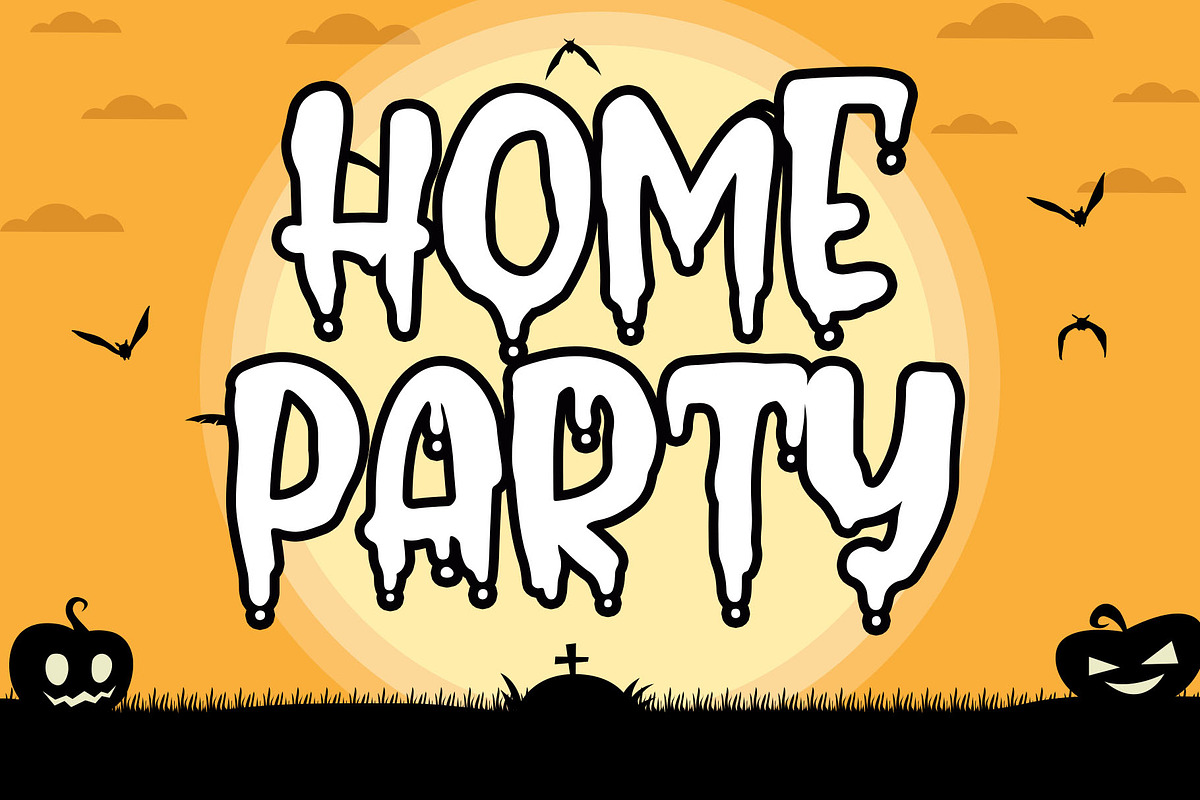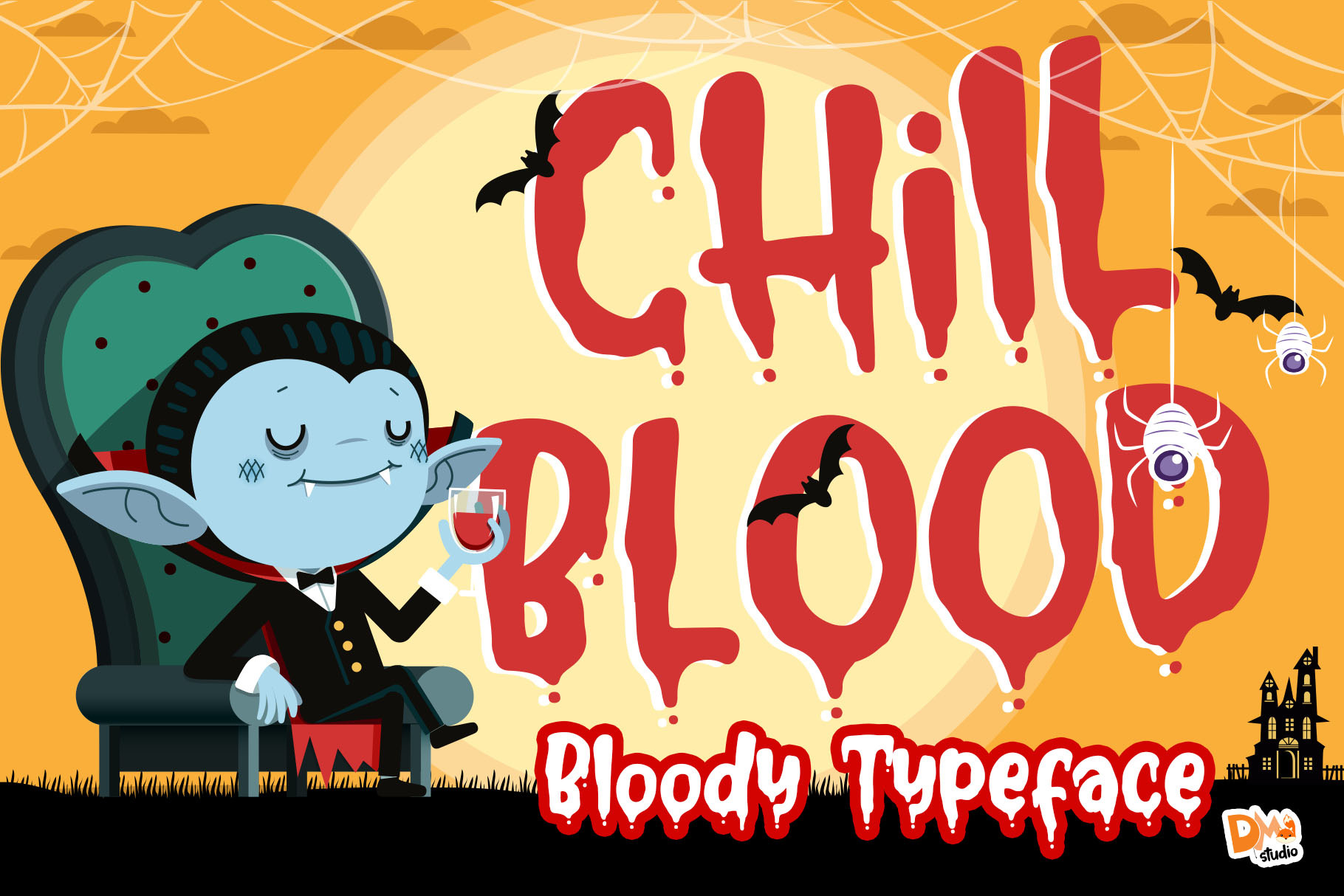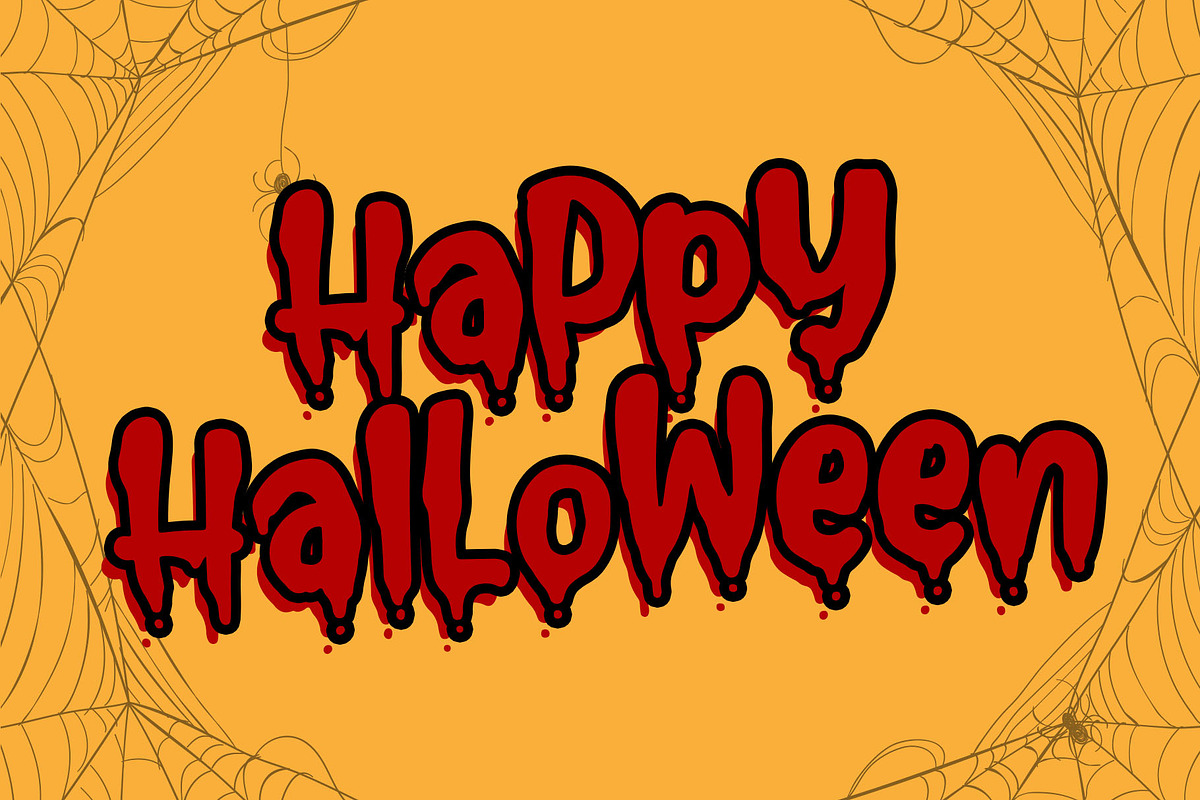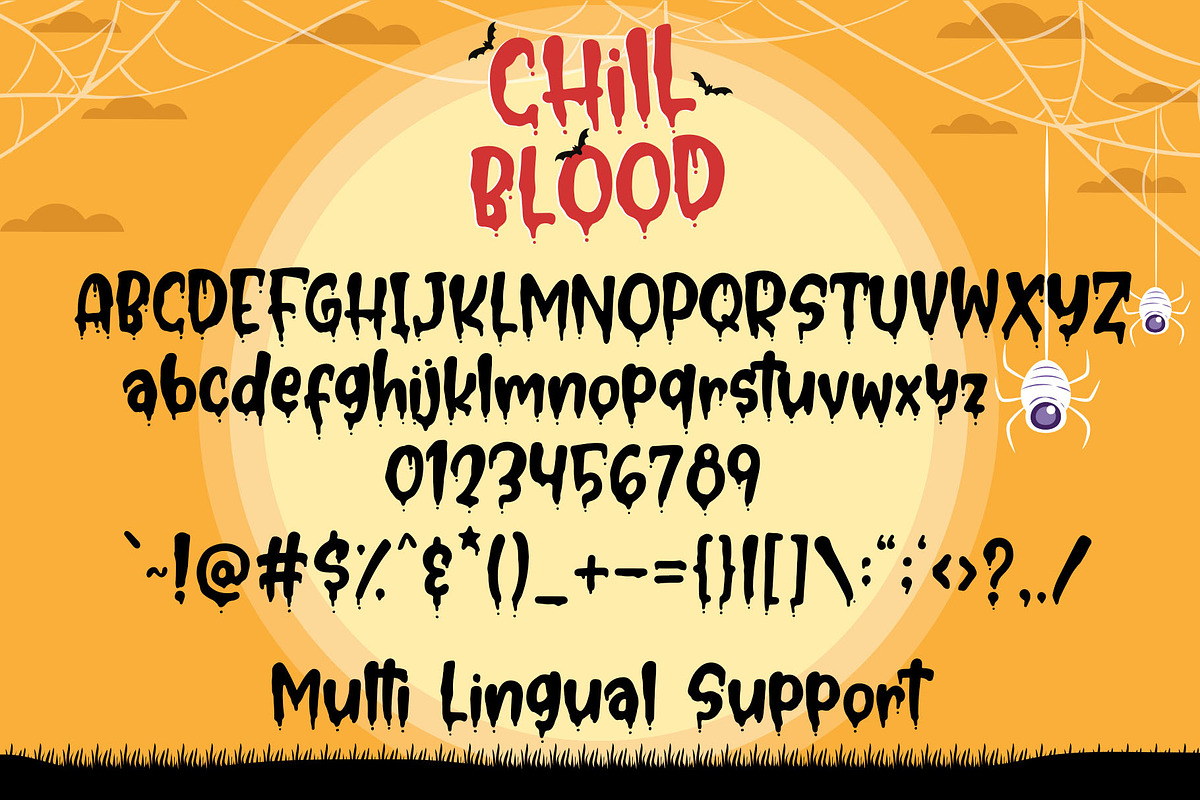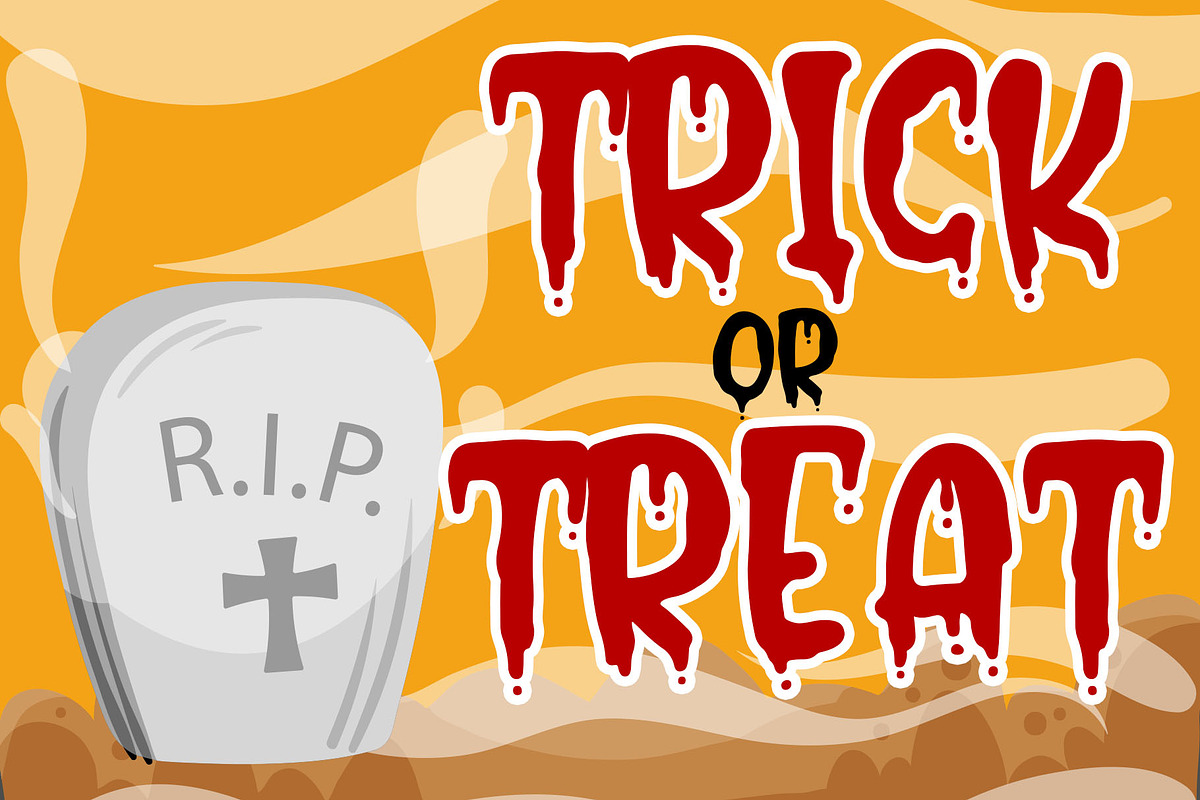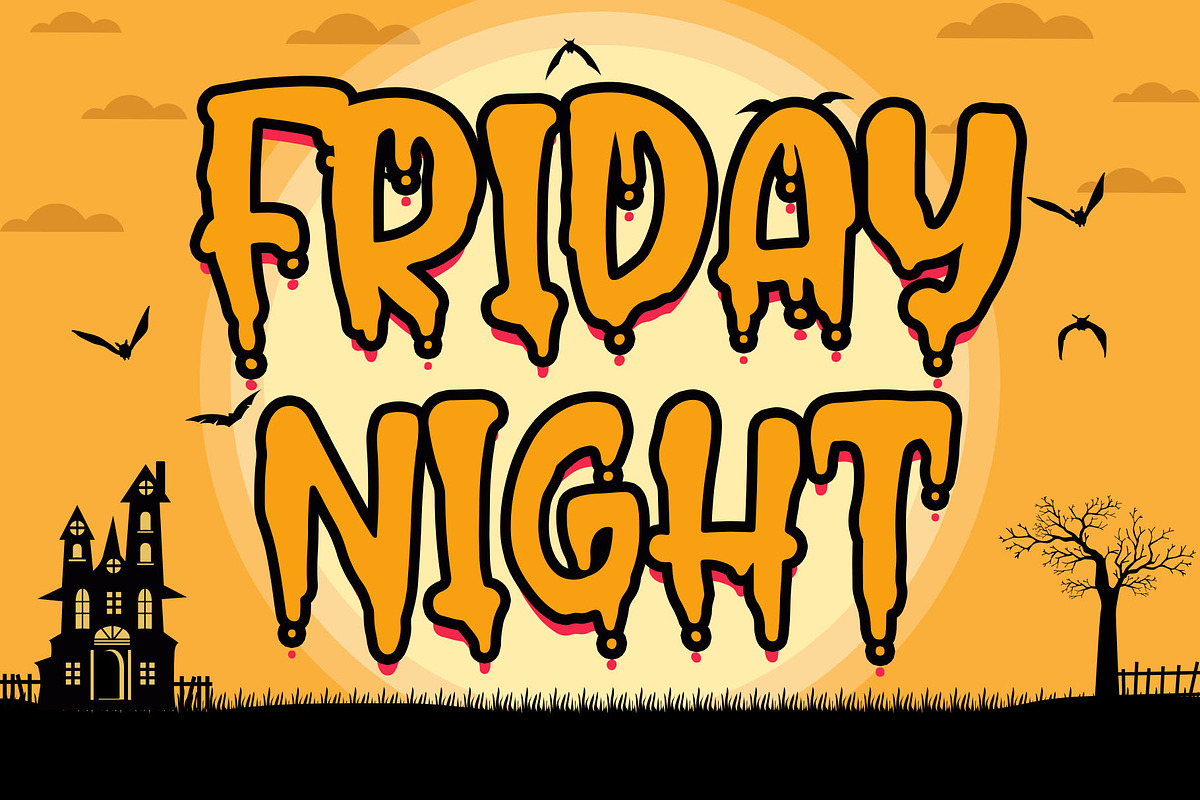
Chill Blood - Bloody Typeface
Chill Blood
Indroducing the blood dripped style typeface, Chill Blood ! Unique style, crafty and creeepy typeface, great for your creepy design!
Features: -Uppercase -Lowercase -Numeric -Symbols -Multilingual Support